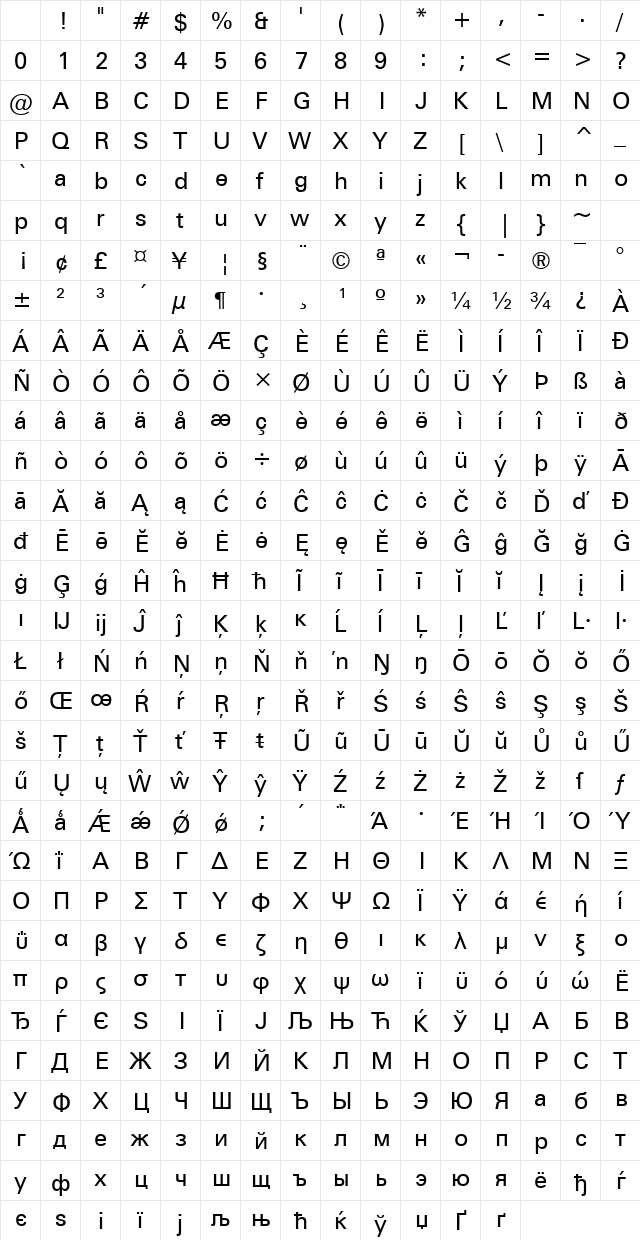
Complete Zurich WGL4 BT Roman glyph index. Displaying only characters natively supported by Zurich WGL4 BT Roman font.
Zurich WGL4 BT is a composed and adaptable typeface that performs quietly and consistently across a wide range of design contexts.